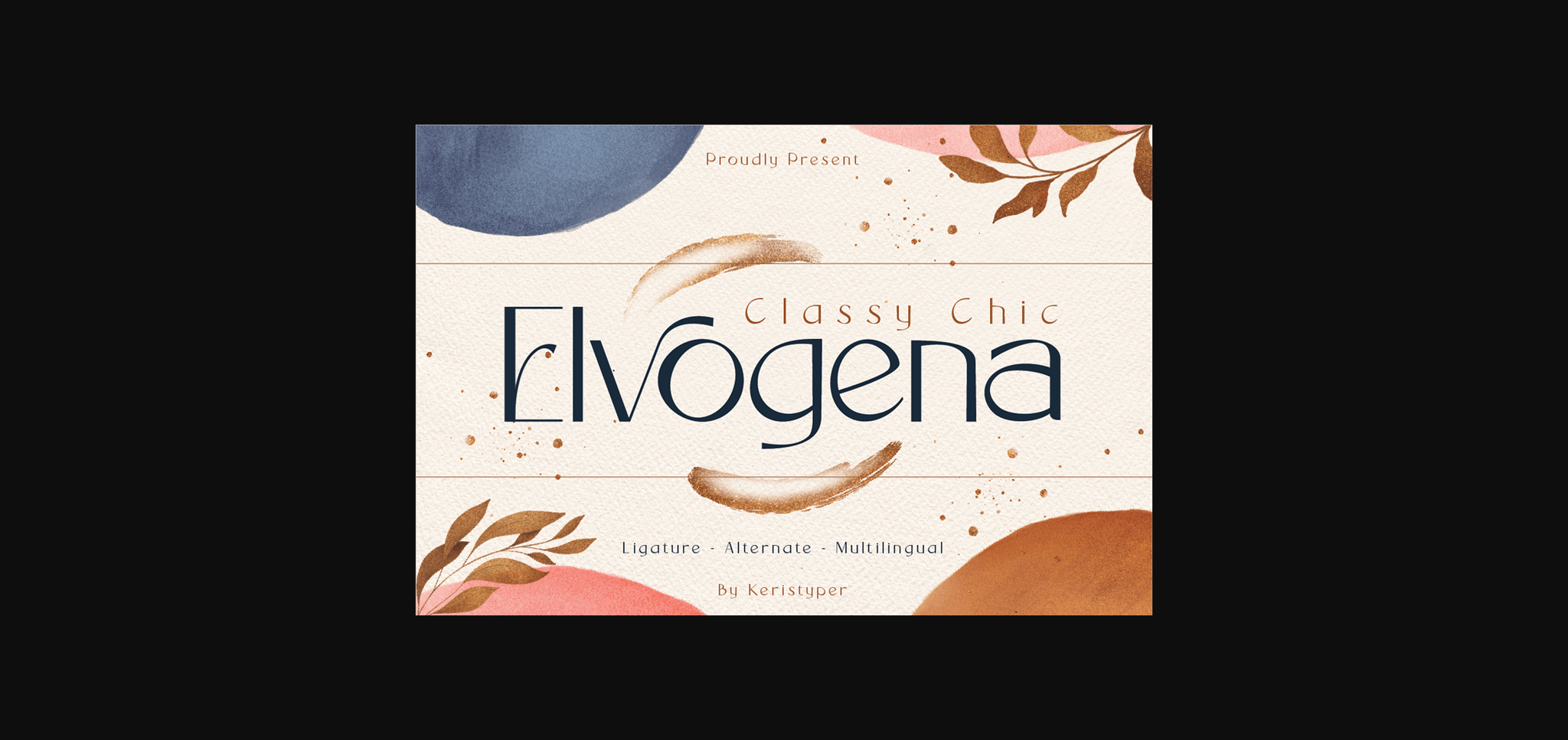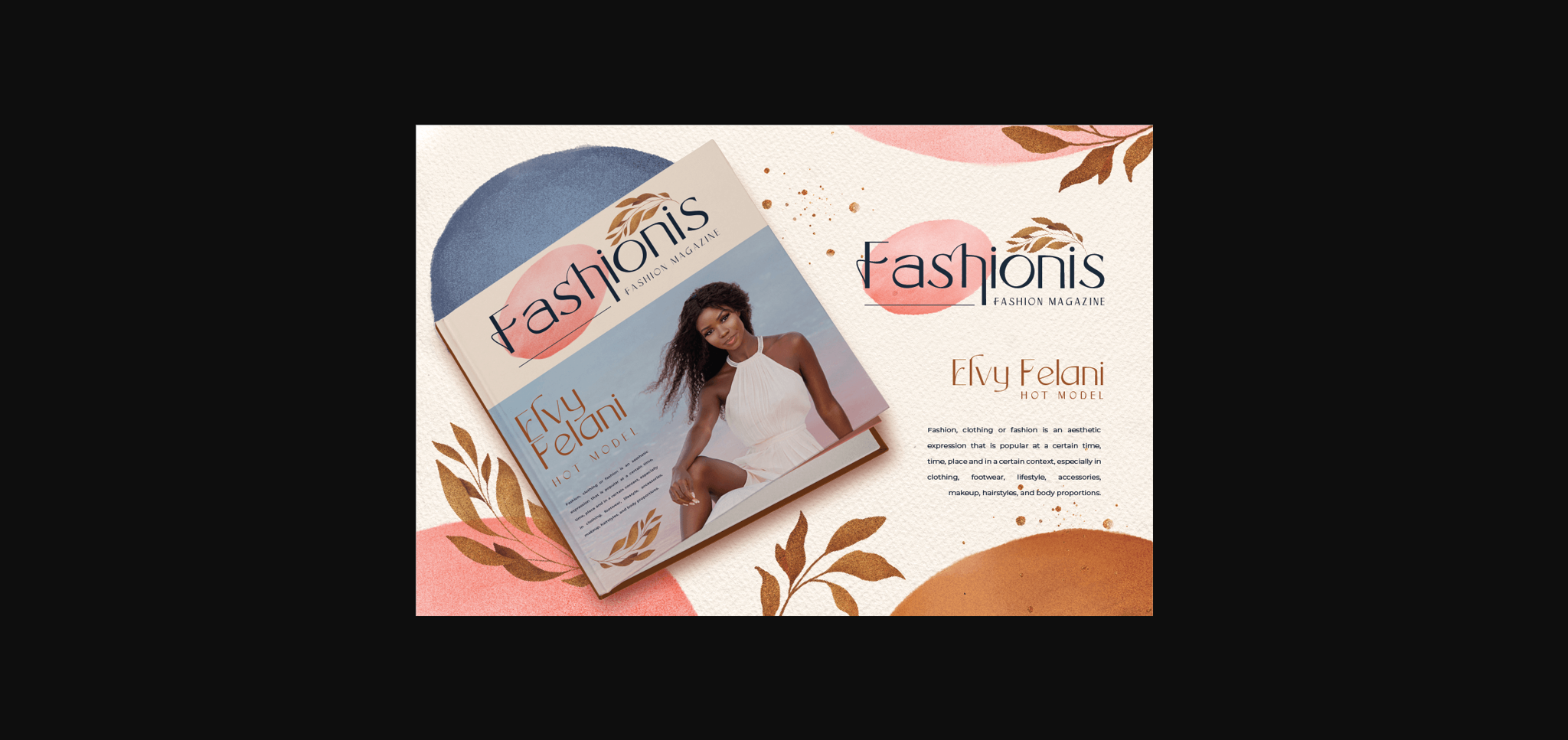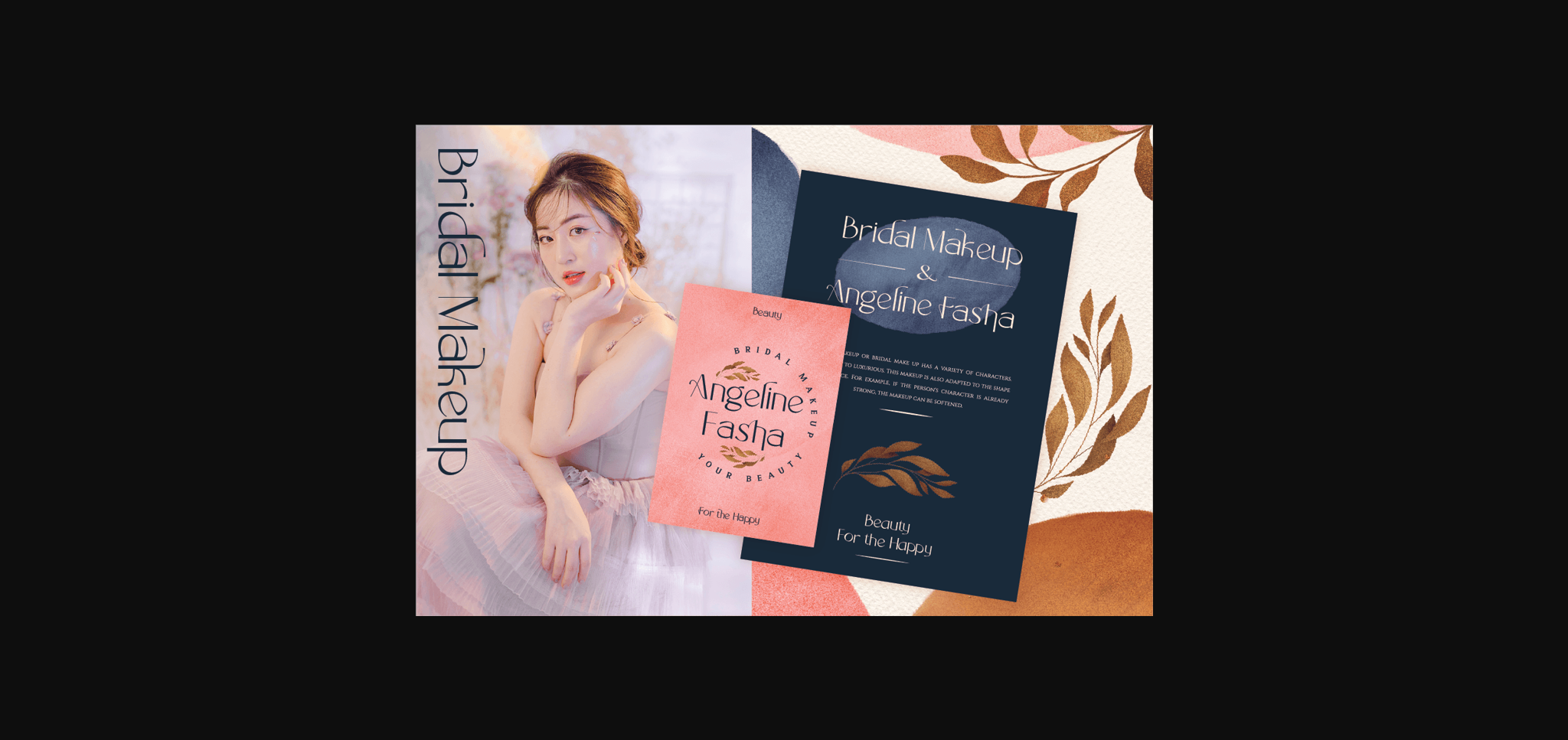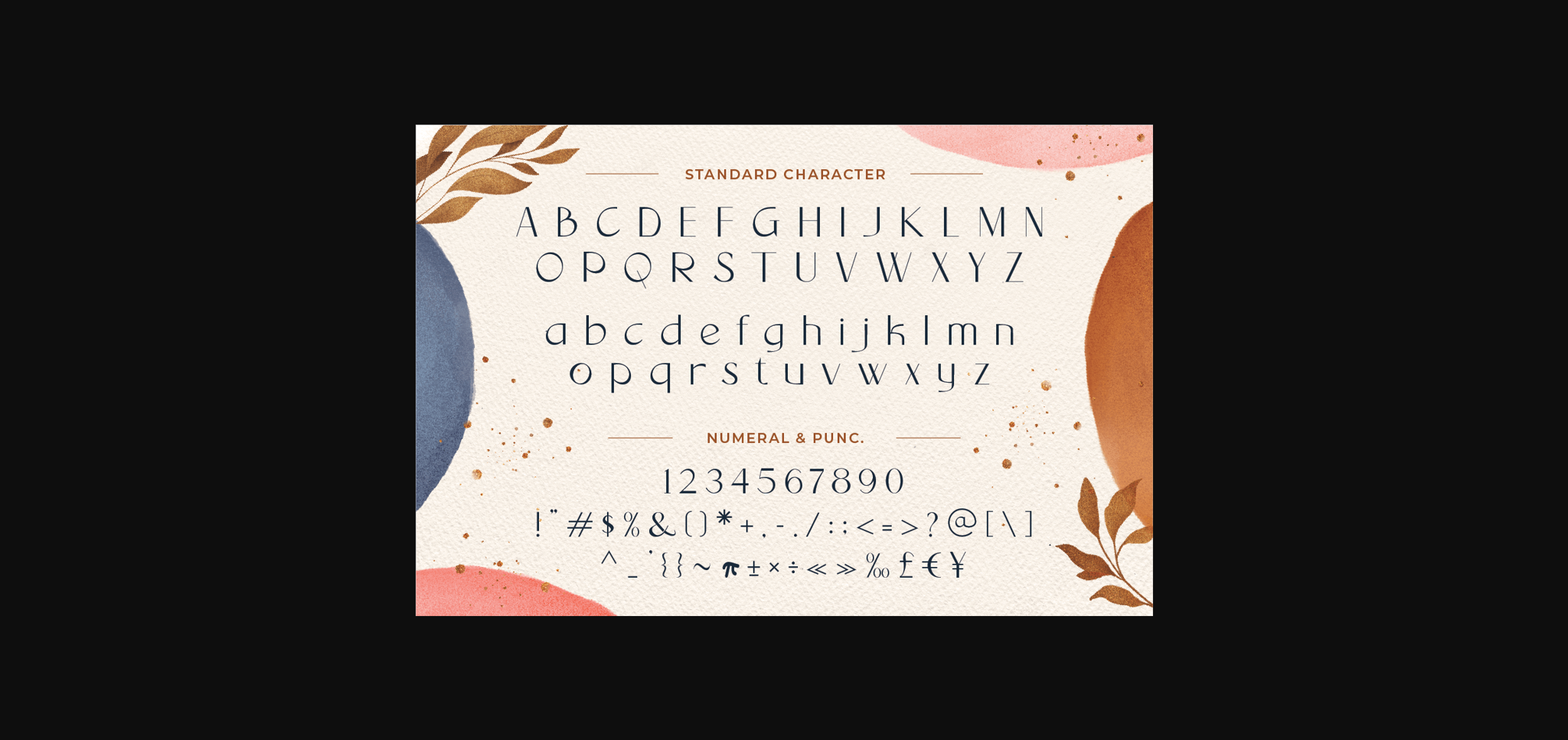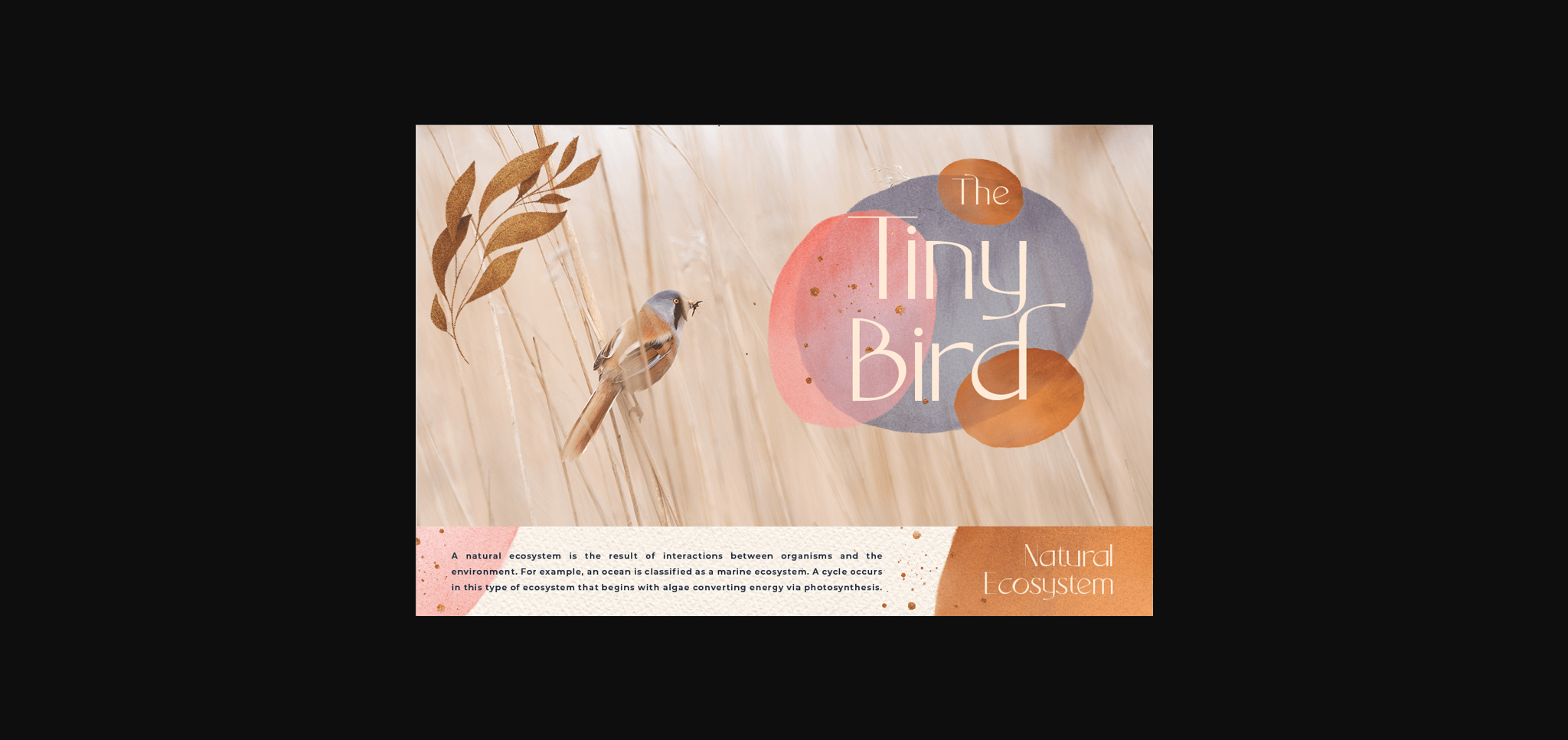
About Elvogena Font
Elvogane is a classy chic font that is both stylish and unique with smooth curves. This font is good for logo design, Social media, Movie Titles, Books Titles, short text even long text letters, and good for your secondary text combined with sans or serif.